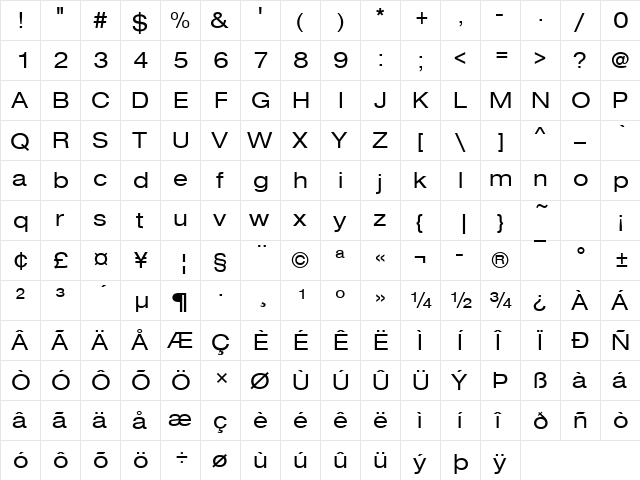
Nimbus Sans Becker DExt Regular
Design Context for Nimbus Sans Becker DExt Typeface
Nimbus Sans Becker DExt offers clean, dependable letterforms without strong stylistic allegiance, making it a practical choice for designers who need flexibility.